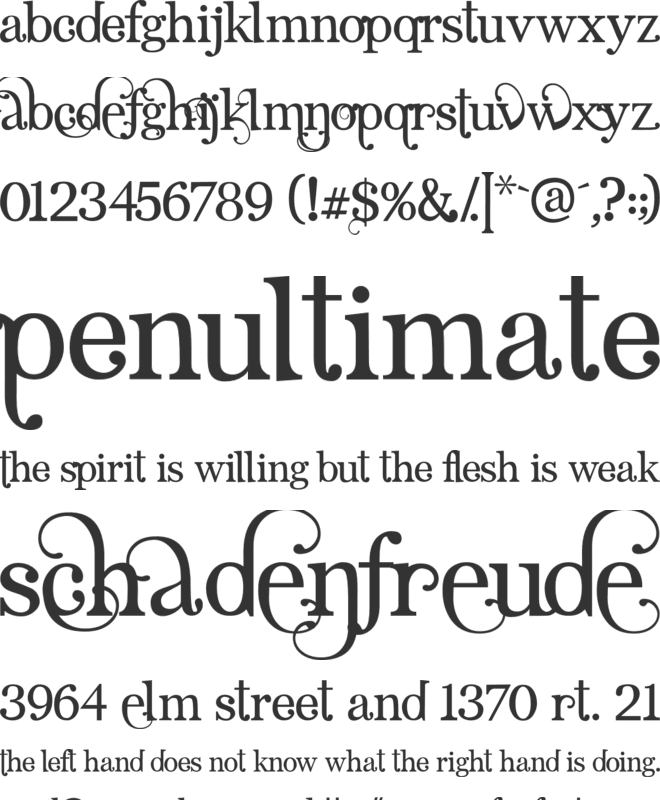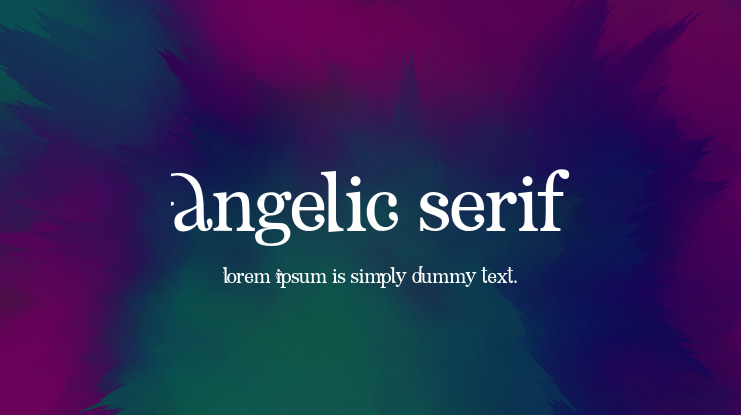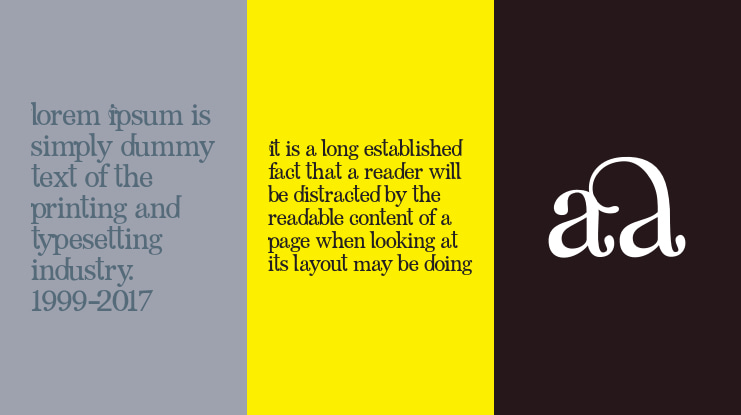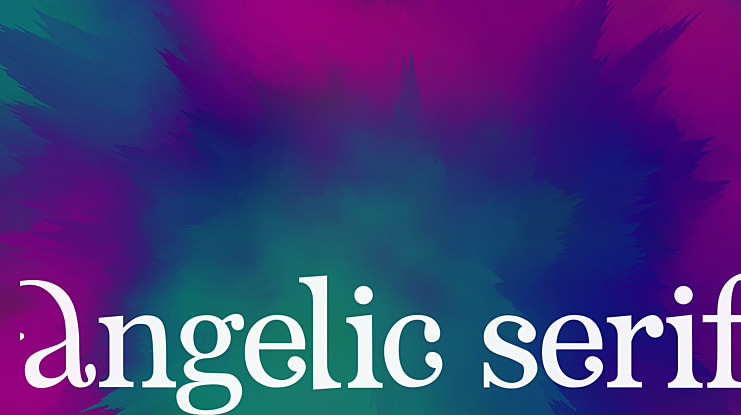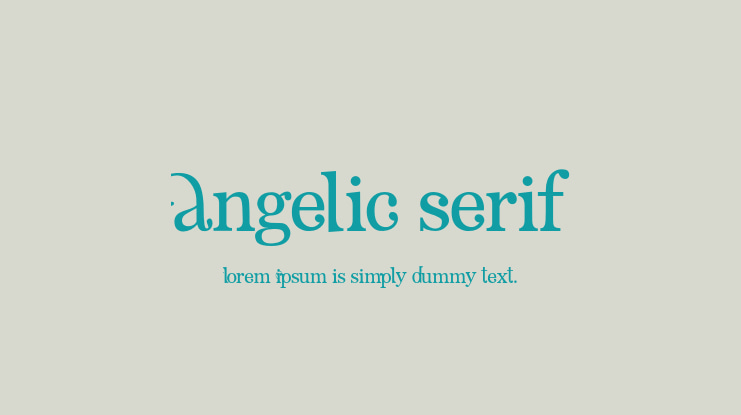
Angelic Serif Font
A simple form of Angelic Peace/Angelic War - free for personal use. v1.1
I made this font because I wanted to redo it completely with more original characters for Angelic Peace. Also after seeing a tattoo of Angelic War done on someone's arm but in a simplified form I thought maybe someone would find a simpler serif form useful. I hope you all enjoy it.